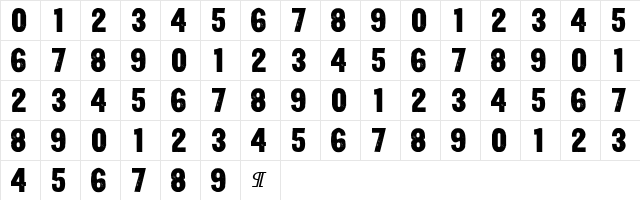
Yardbird Numerals Regular Free Font
Yardbird Numerals Regular
Foundry: CONIGLIO USA
Design Context for Yardbird Numerals
Yardbird Numerals is a composed and adaptable typeface that performs quietly and consistently across a wide range of design contexts.
Pro Tip: Use Yardbird Numerals in both headline and body roles to test its range before committing to a single application.